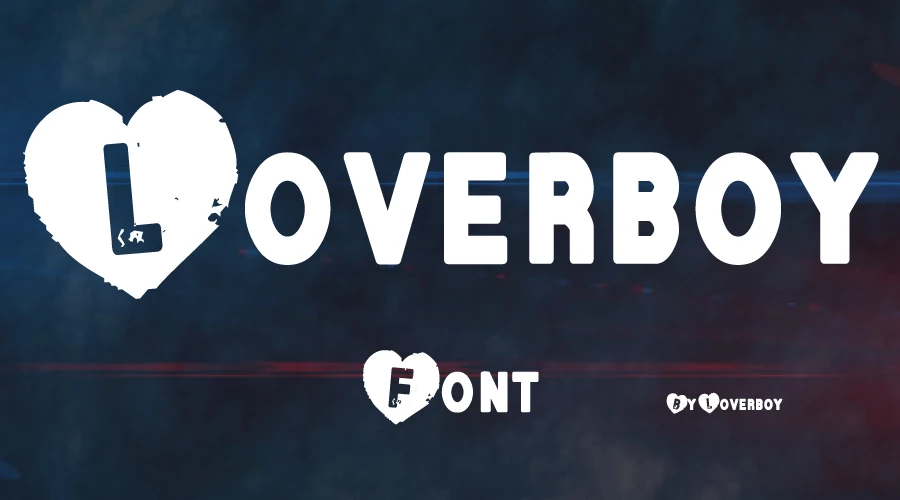
Are you looking for a Valentine’s Day font? Then we have just the thing for you! Introducing Loverboy Font! Just as no one knows when love will arrive, the Internet has no idea who designed Loverboy. It is a decorative holiday font designed specifically for Valentine’s Day. The font version is Macromedia Fontographer 4.1, and it was released on October 13, 1999. Its file size was 127 KB. The font includes 227 glyphs and 231 characters, including romantic symbols, special characters, and numerals. With its romantic symbols and special characters, the Loverboy font adds a new and unique angle to designs. Perfect for Valentine’s Day or any project that calls for a touch of love. It is available for both personal and commercial use for free. The font is available in TrueType format and is free to use.
The Loverboy font can be used in various projects that call for a touch of love or romance, such as Valentine’s Day cards, romantic themes, love letters, and wedding invitations. It can be used for various romantic projects, such as creating a romantic scrapbook documenting special memories with your partner, adding captions to photo albums, creating wall art, making love coupons, leaving love notes, and creating personalized gifts. These ideas are a great way to show your love and make use of the Loverboy font in a creative and fun way.